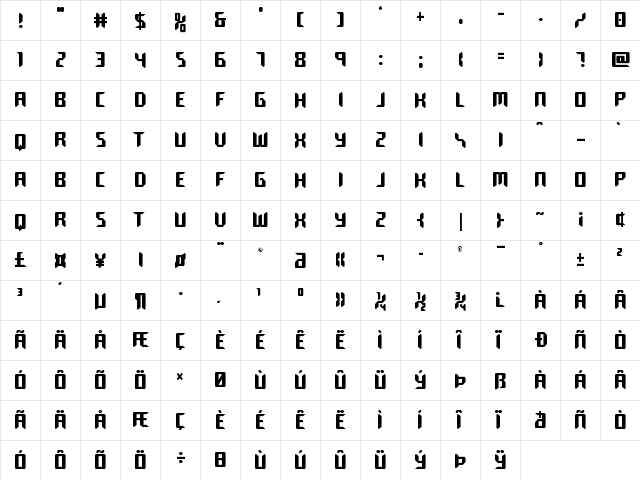
Robo-Clone Straight Condensed Condensed
Design Context for Robo-Clone Straight Condensed Typeface
Robo-Clone Straight Condensed is a composed and adaptable typeface that performs quietly and consistently across a wide range of design contexts. Its narrow stance lets it pack a punch even in space-constrained designs.